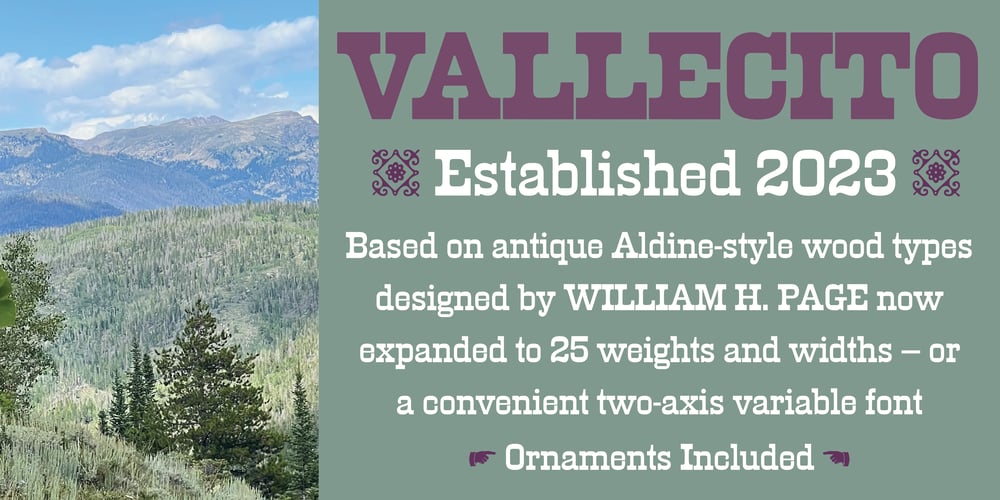
Vallecito Font Family was designed by Steve Matteson and published by Matteson Typographics. Vallecito contains 25 styles and family package options. Vallecito or “Little Valley” is an Aldine woodtype design popular in the 19th century for posters and headlines. Vallecito’s multitude of weights and widths allows for impactful typography in signage, posters, menus and logos. Vallecito’s exaggerated, reversed stress shapes may be used in traditional or impressionistic typography.